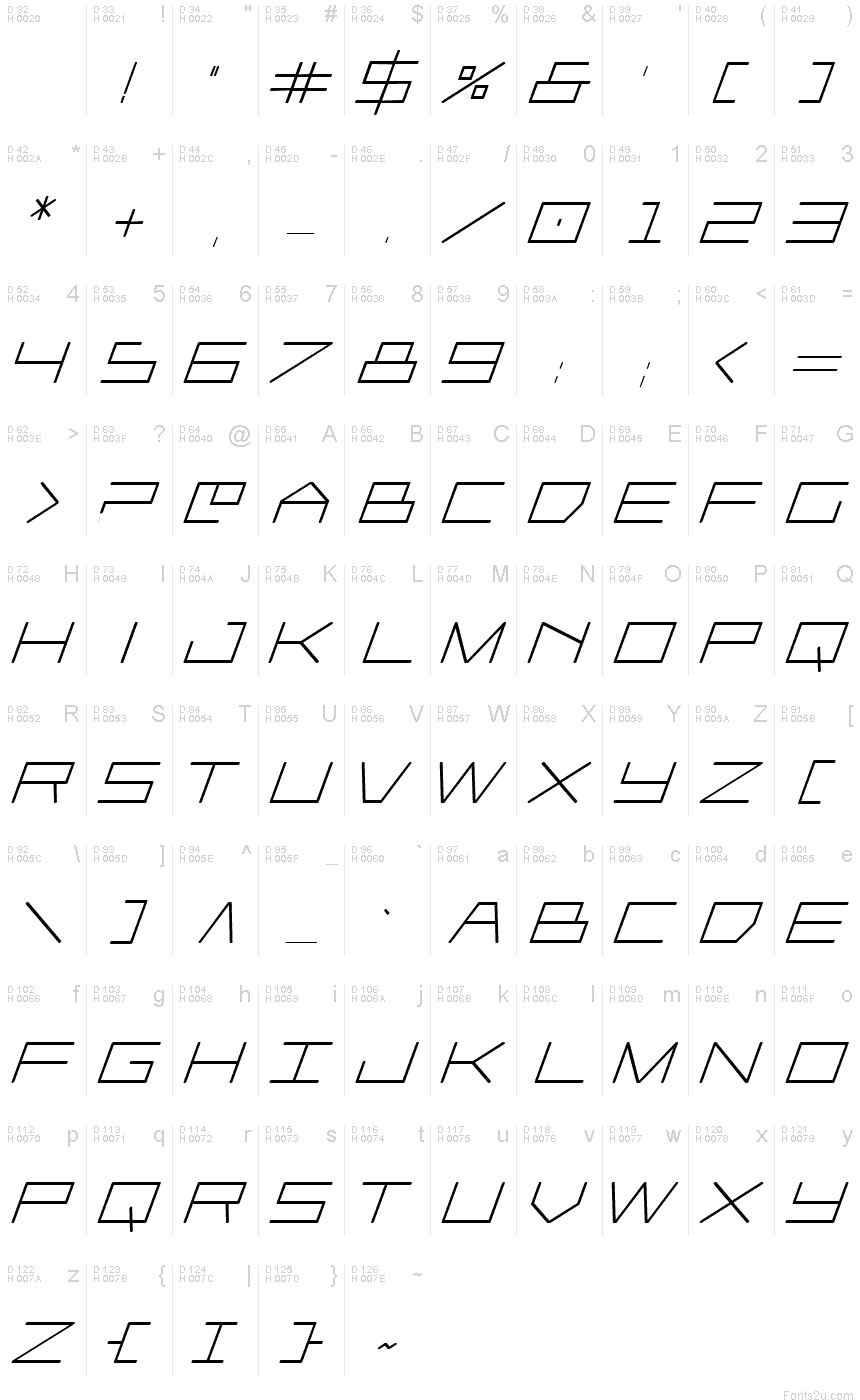
Player 1 Up Bold Italic by Daniel Zadorozny of Iconian Fonts is a free futuristic display font with a sharply slanted, technical build. Its thin, even strokes turn the letters into open geometric frameworks, with clipped joins and broad horizontal runs. Angular curves and pointed turns recall custom lettering drawn for a spacecraft or racing machine.
A gaming hardware brand could use it for logos, packaging, event graphics, and science-fiction posters, especially when the identity leans toward arcade competition or high-speed technology. Its machine-drawn profile makes a memorable esports brand signature.